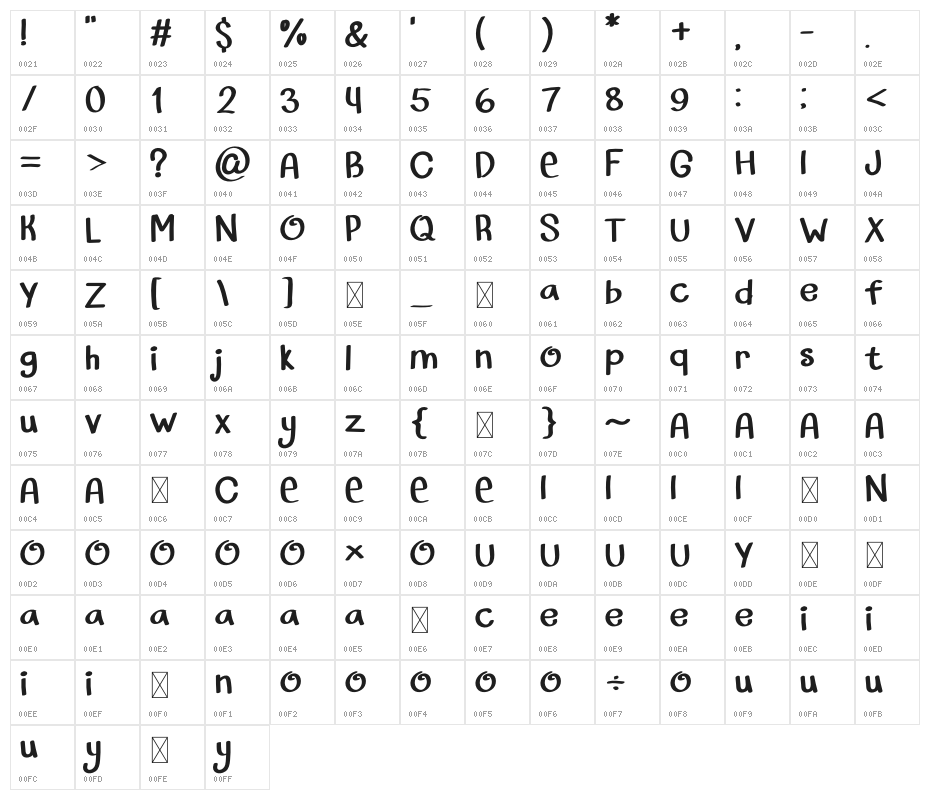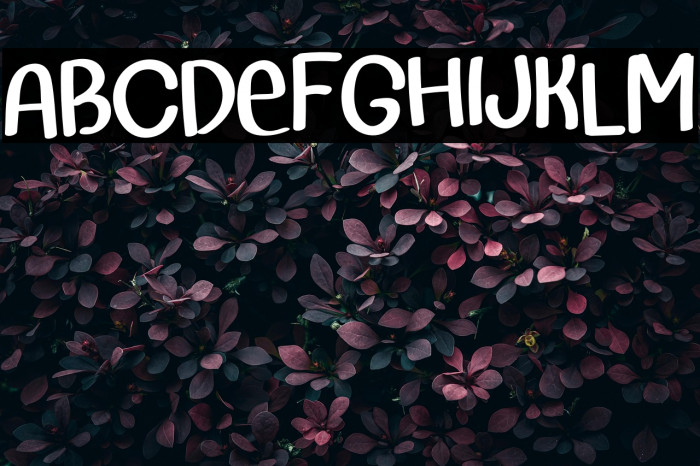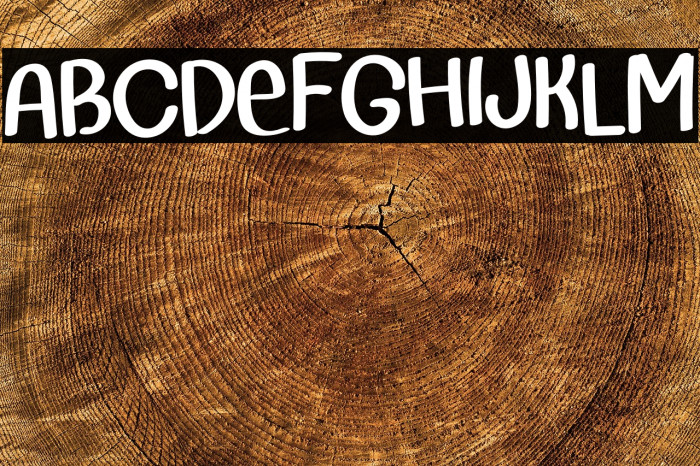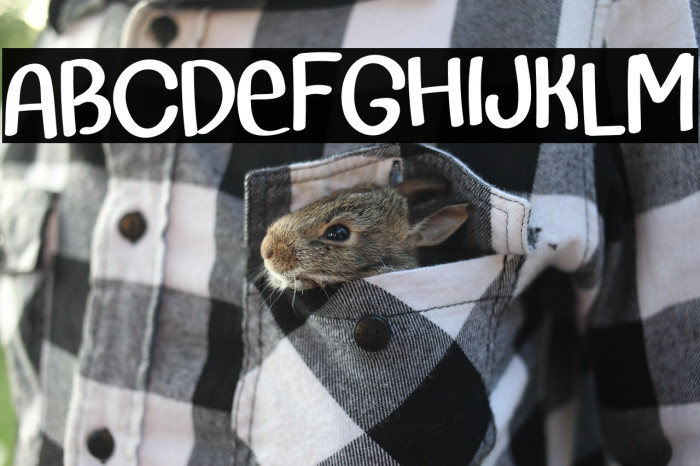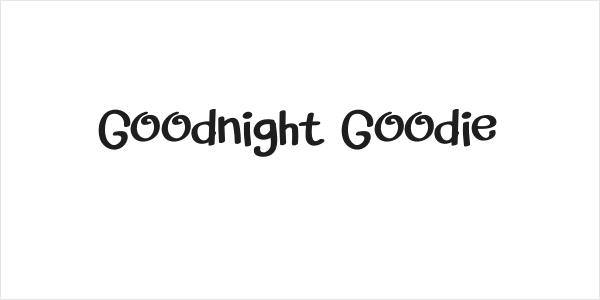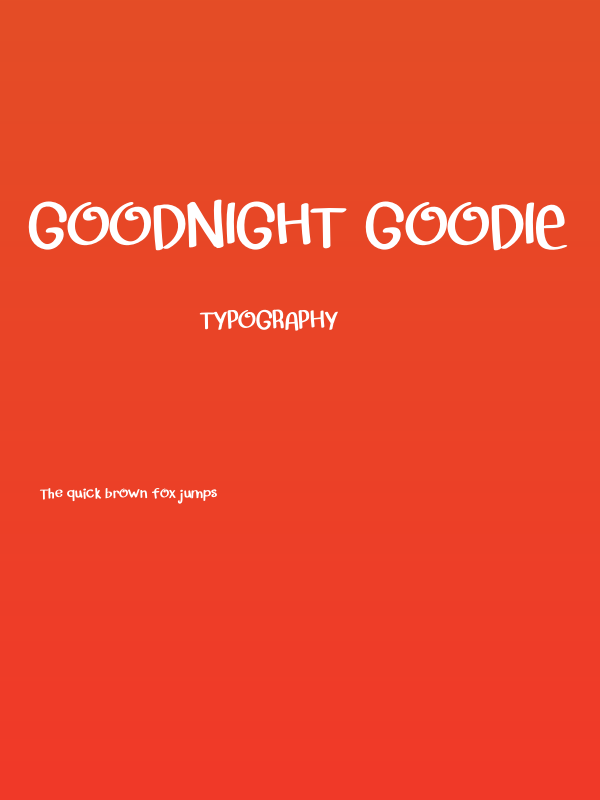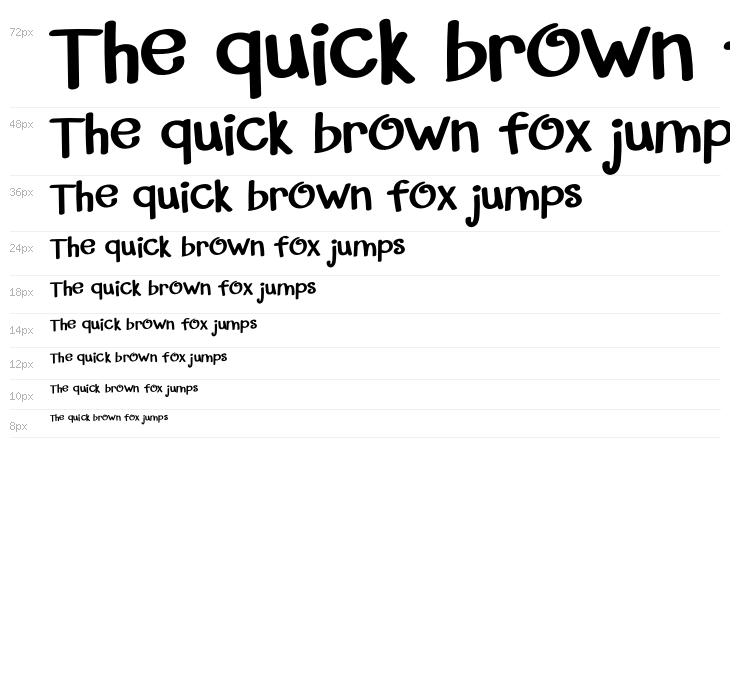
Goodnight Goodie Font
Goodnight Goodie Description
This playful and whimsical font features a handwritten style with bold, rounded characters. The uppercase and lowercase letters exhibit a consistent flow, with slightly exaggerated curves and a friendly appearance. Numbers and special characters maintain the same lively and informal aesthetic, making the font suitable for projects that require a personal touch. The strokes are uniform in thickness, contributing to a cohesive look across all characters. This font is ideal for creative and casual applications, offering a sense of fun and approachability.
| Proposed Projects | Ideal for children's books, greeting cards, playful branding, and social media graphics. |